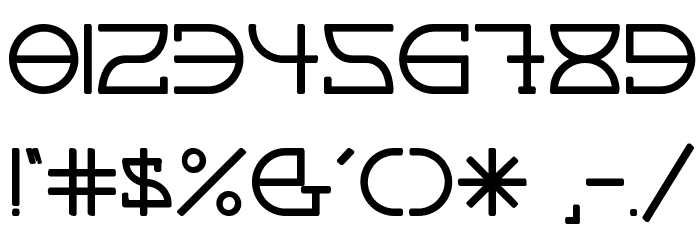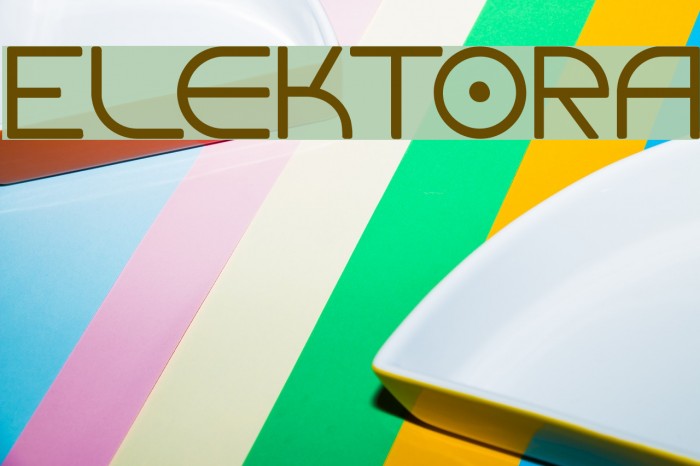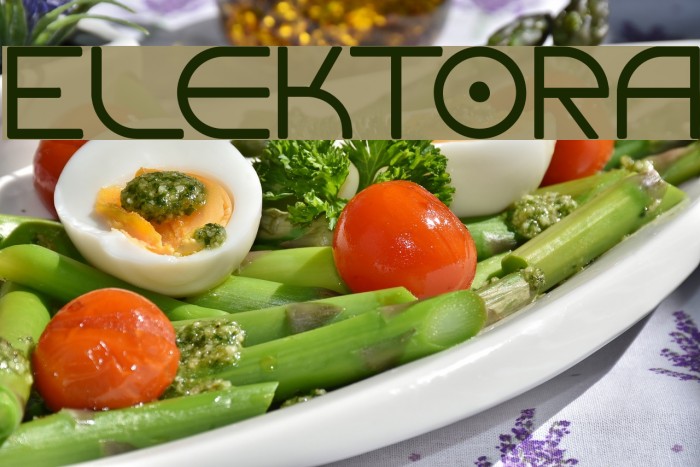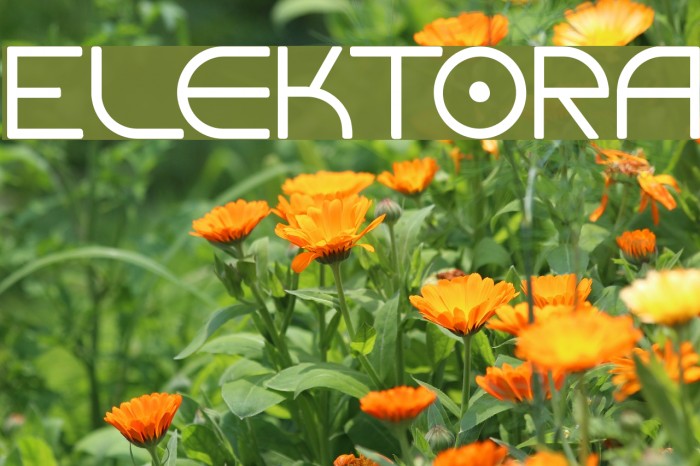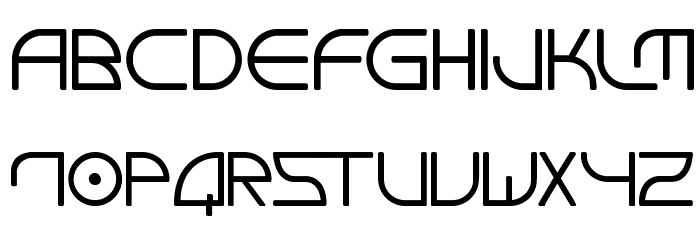
Elektora Font
This font features a futuristic and geometric design, characterized by its clean lines and rounded edges. The uppercase letters are distinct with a modern, almost digital appearance, while the lowercase letters maintain a consistent style that complements the uppercase. The numerals are uniquely crafted, adding to the font's overall aesthetic appeal. Special characters are designed to match the geometric theme, making this font ideal for projects that require a contemporary and innovative look. Its uniform stroke width and balanced proportions contribute to its legibility and versatility.
A futuristic, geometric font with clean lines and rounded edges.
• Proposed Projects: Ideal for technology branding, sci-fi themed projects, modern logos, and digital interfaces.
• Category: Decorative/Display
• Contrast: Low
• Overall Style: Modern
• Use Case: Logos, Headlines, Digital interfaces